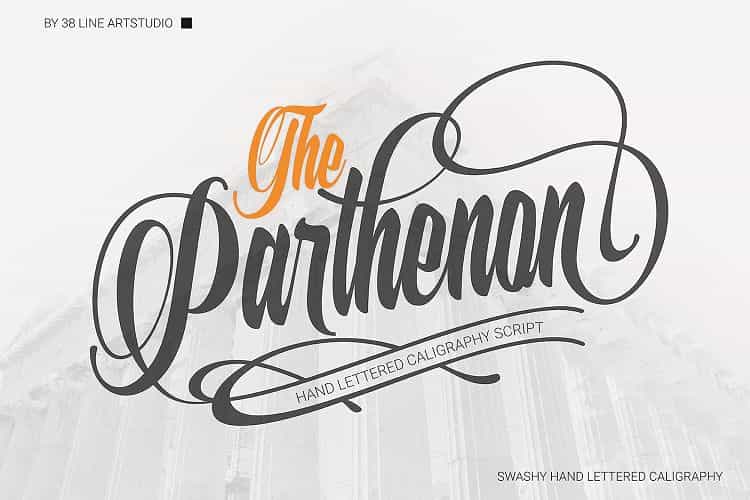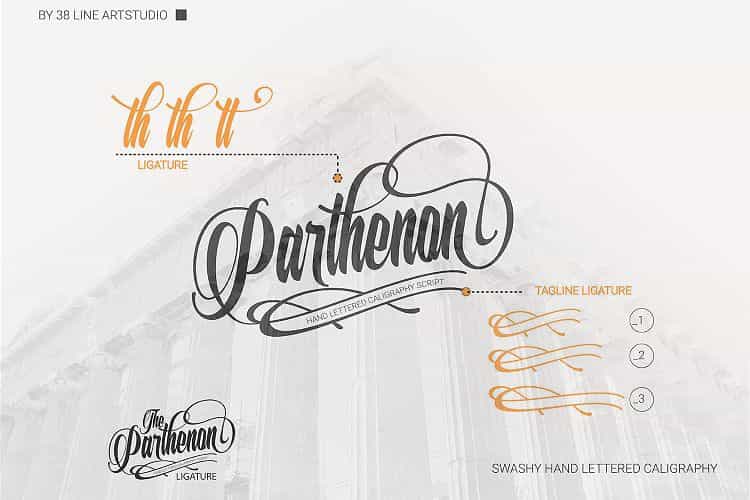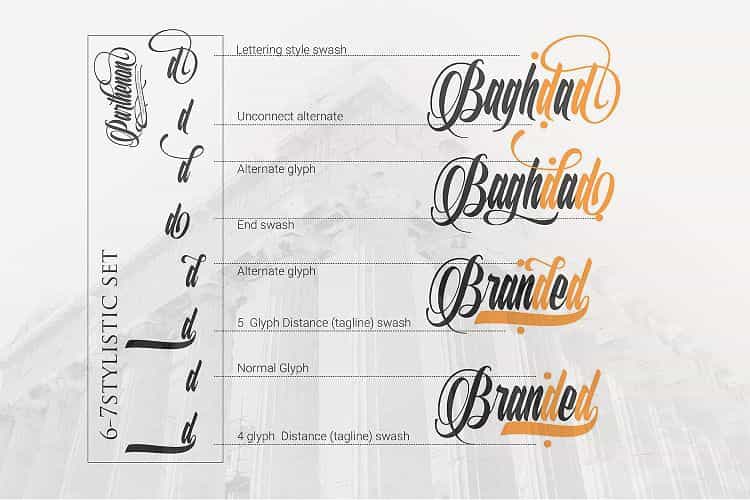
Allow me to present you the font “The Parthenon Font” A hand lettered caligraphy script. The Parthenon is a script lettering with calligraphy style. The set of 6 to 7 alternates comprises the possibility to produce fantastic lettering styles.